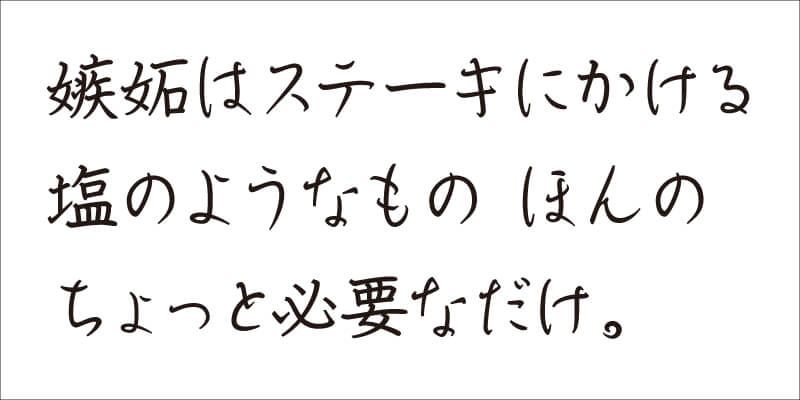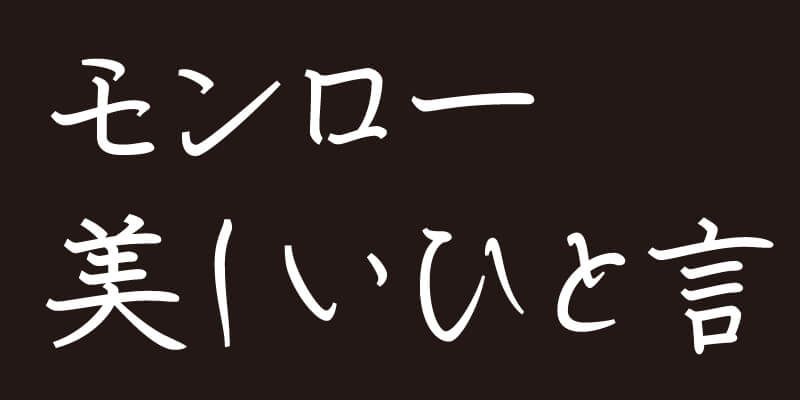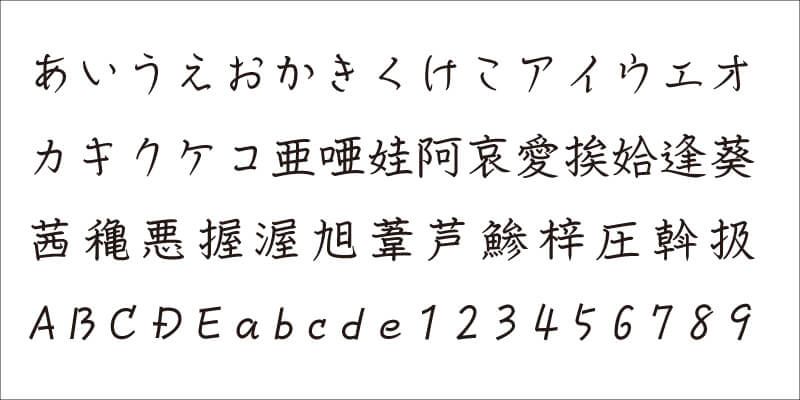
Based on the design of VDL-PenGentle, VDL-PenLady is a “female script”. Elegance and neatness are the two main characteristics of this design. Characters align particularly well in vertical typesetting. With its elegant expression, VDL-PenLady can give the reader a calm and intellectual impression.